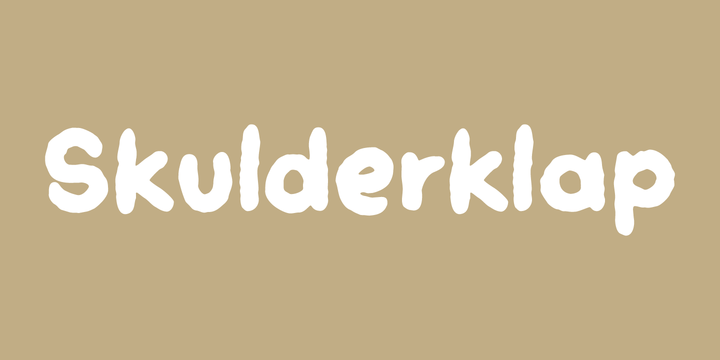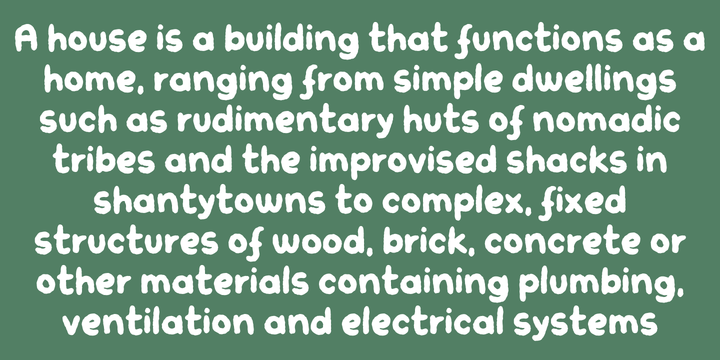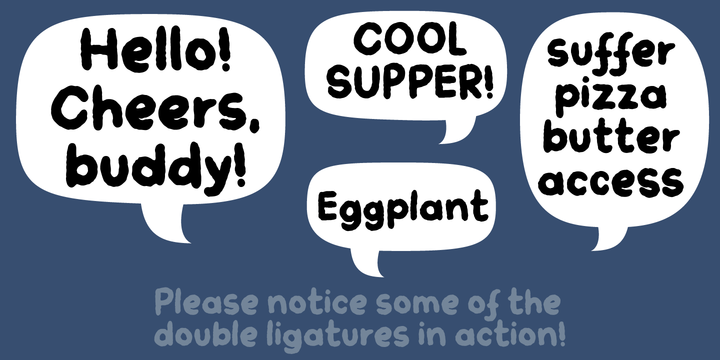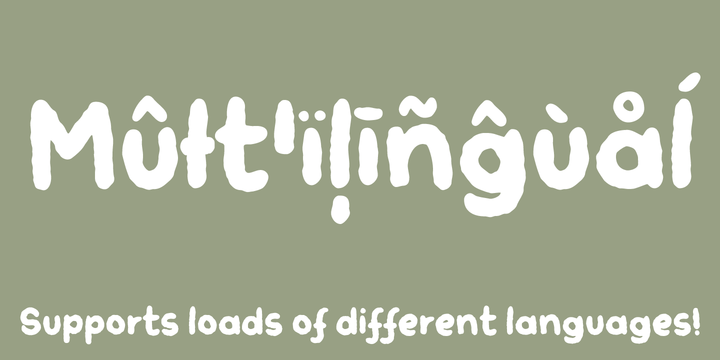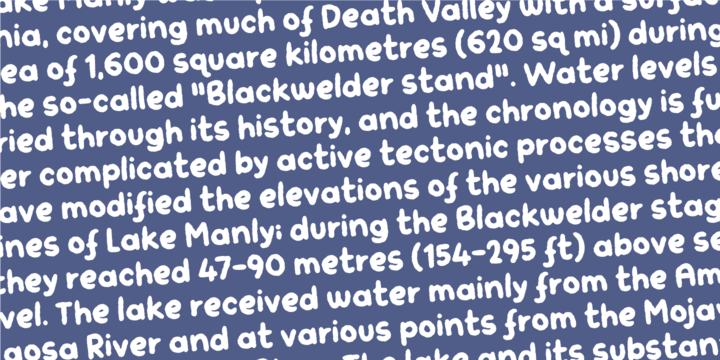
Skulderklap is reckognition - you know, that cheerful pad on the shoulder and the compliments that makes your day! This font wants to compliment your designs - that being posters, postcards, flyers or whatever needs a chunky and legible font.
Use the ligatures for both UPPER- and lowercase letters to make your text look even more like genuine handwriting!